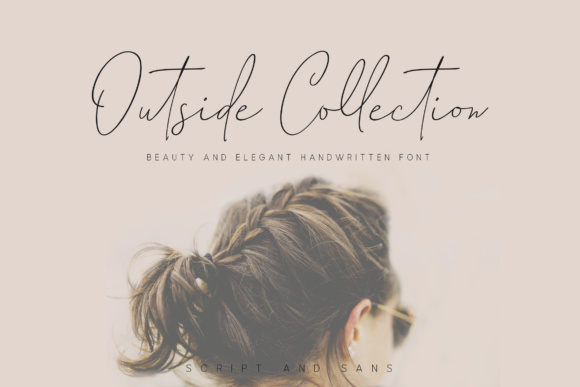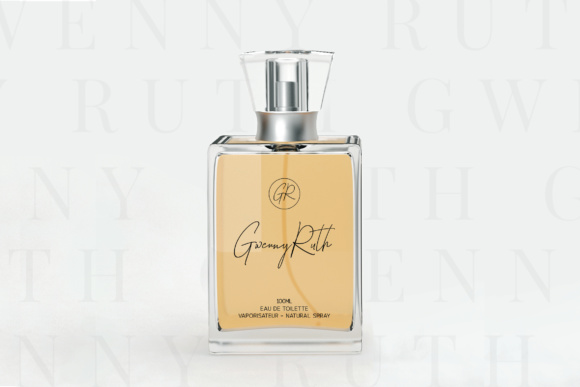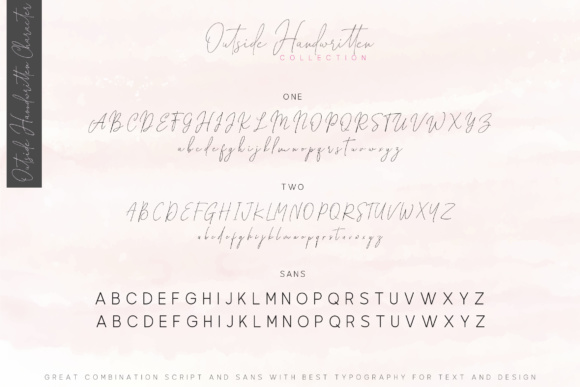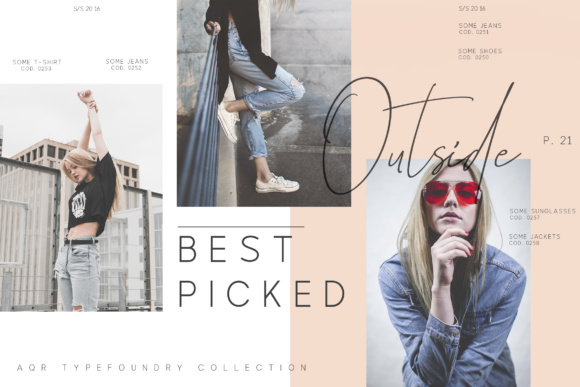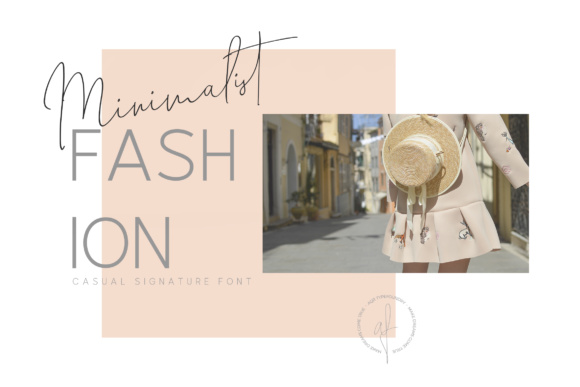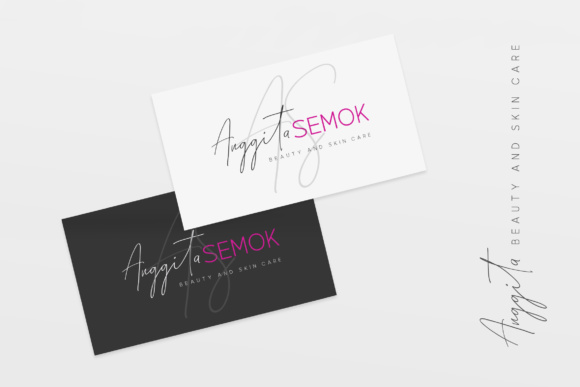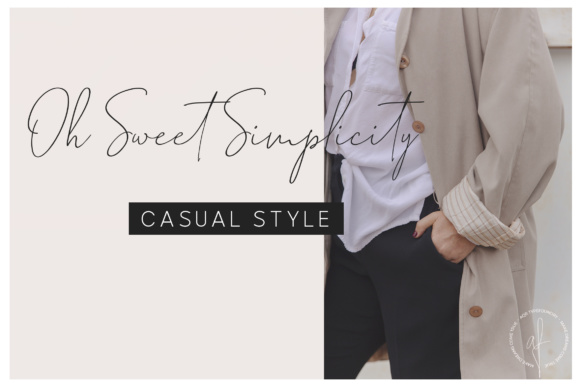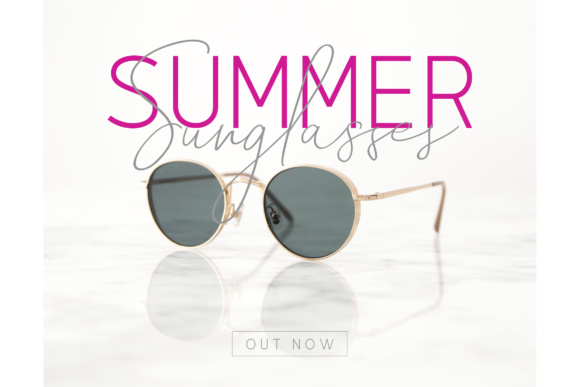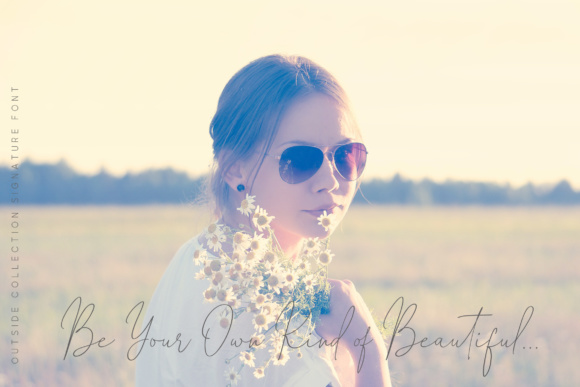
Outside Collection Font
About Outside Collection Font
The Outside Collection is a comprehensive font set, with easily combinable styles that will give your designs a stylish look! This font comes with classy looking sans and script fonts, so you can have harmonious typographic designs at your finger types.